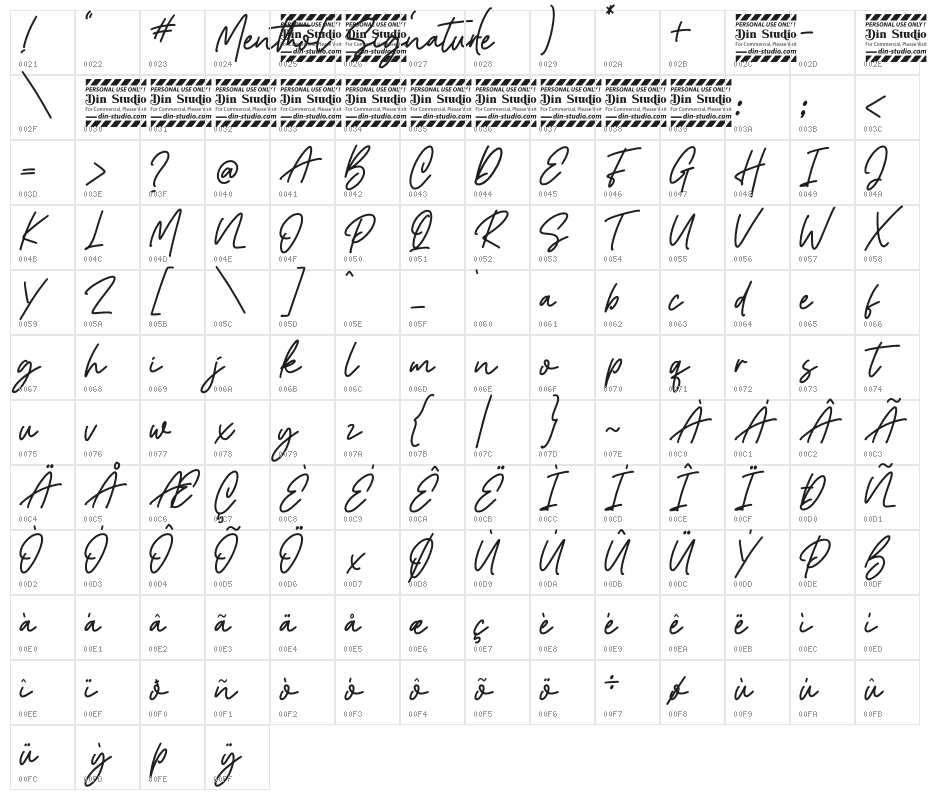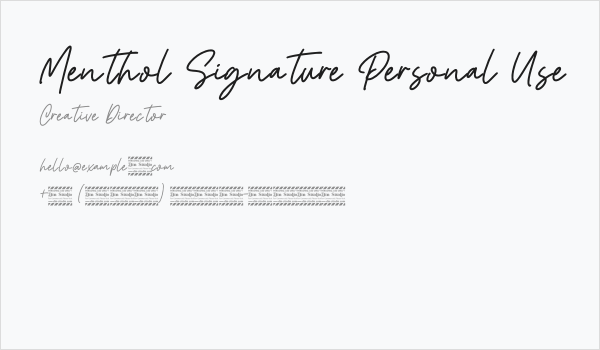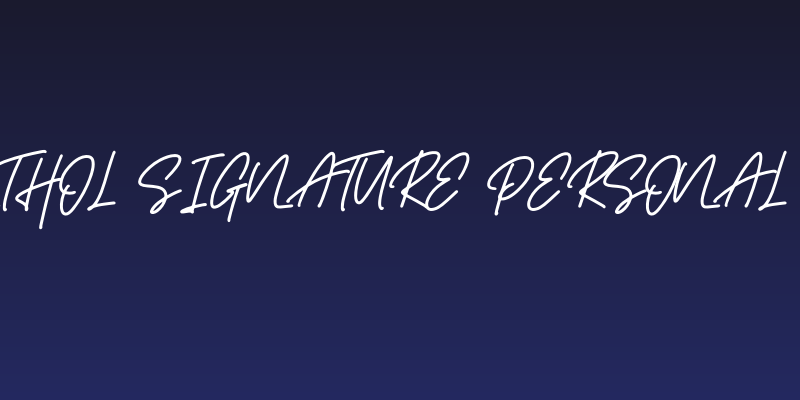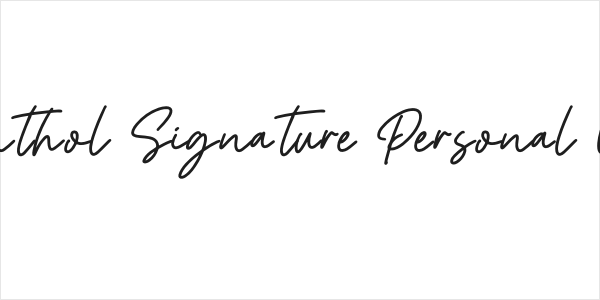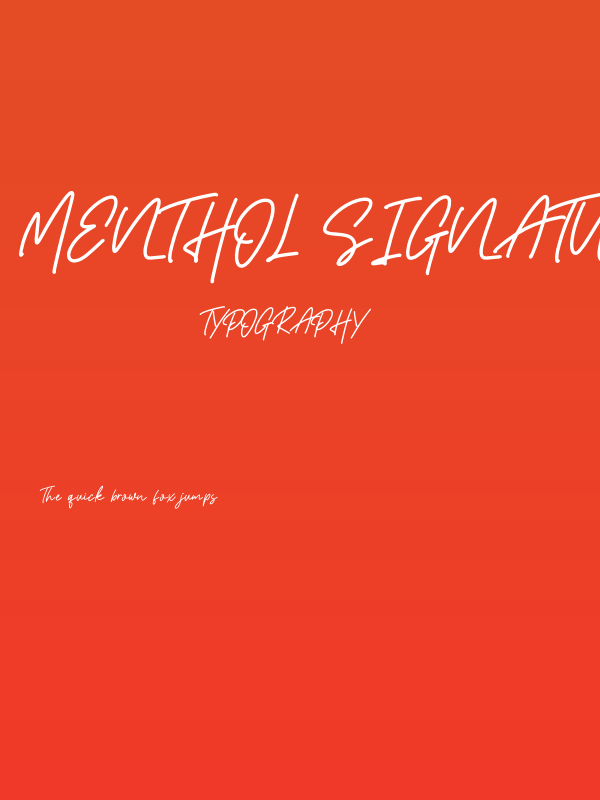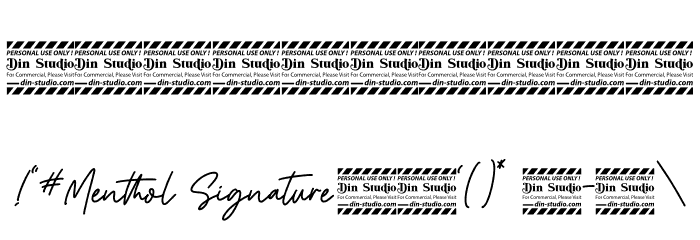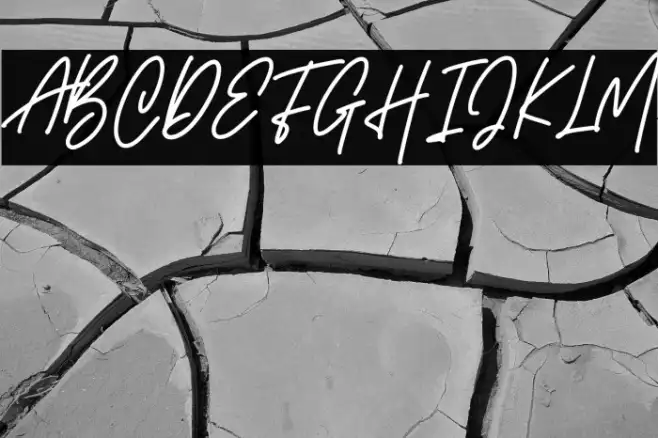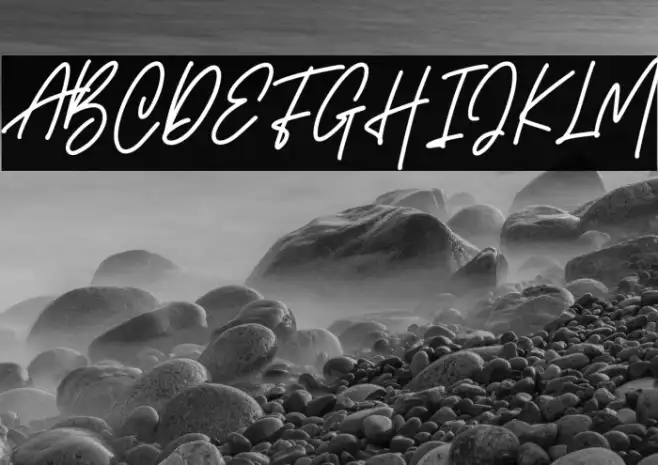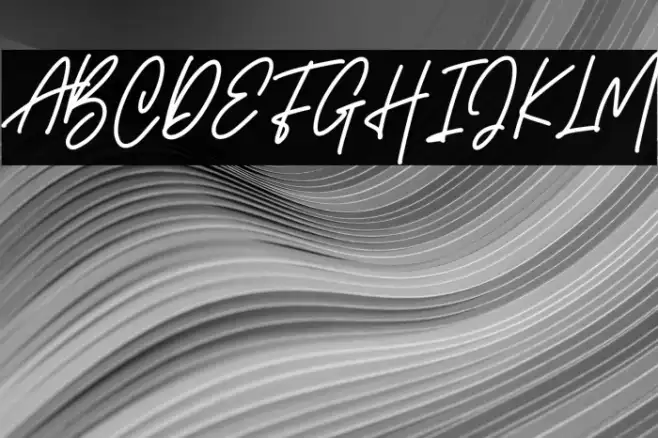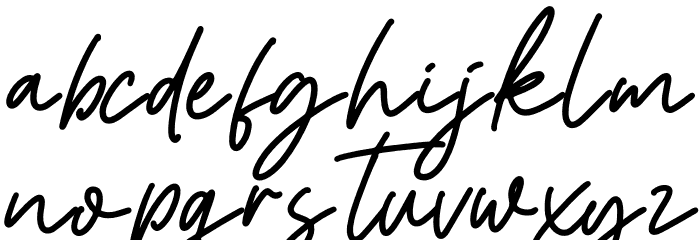
Menthol Signature Personal Use Font
Menthol Signature Personal Use Description
This font features a dynamic and fluid handwritten style, characterized by its elegant and flowing script. The uppercase and lowercase letters exhibit a natural and personal touch, with varying stroke widths that add a sense of movement and grace. The characters are slightly slanted, enhancing the cursive feel, while maintaining readability. The font includes a full set of uppercase and lowercase letters, numbers, and a selection of special characters, making it versatile for various design needs. Its artistic flair makes it suitable for creative projects that require a personal and sophisticated touch.